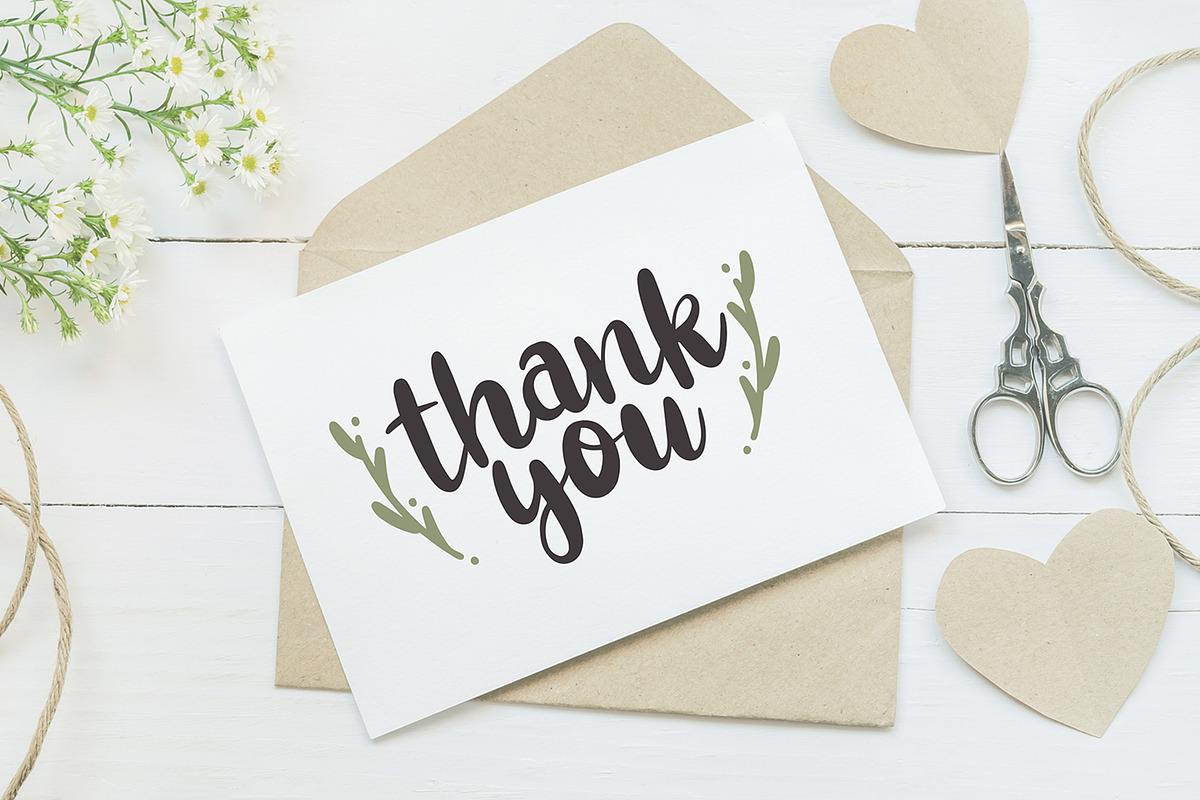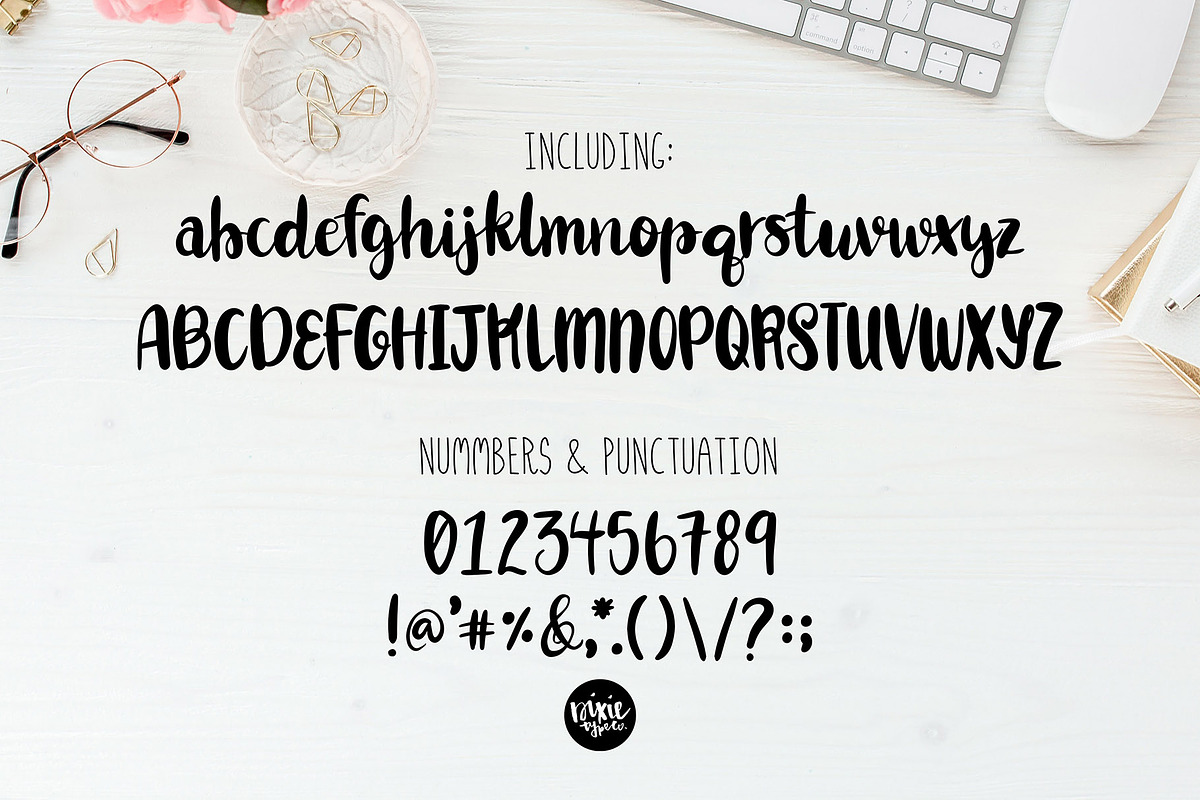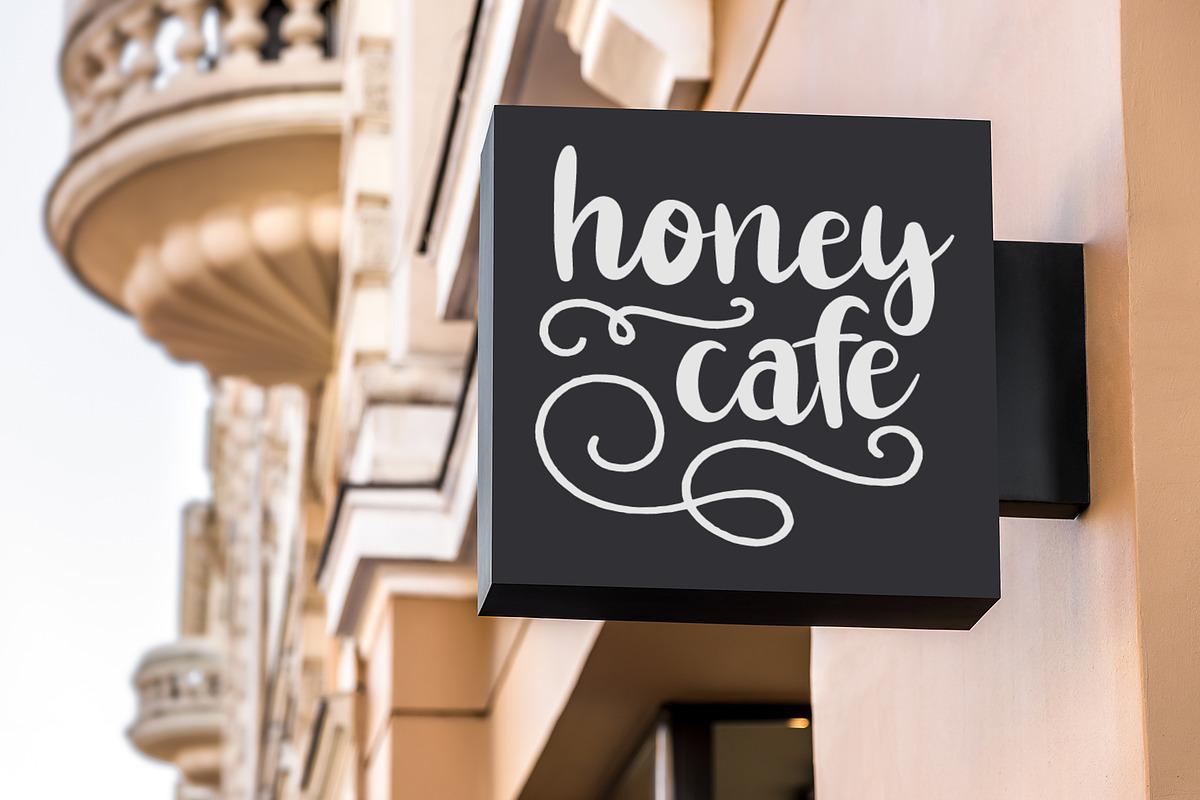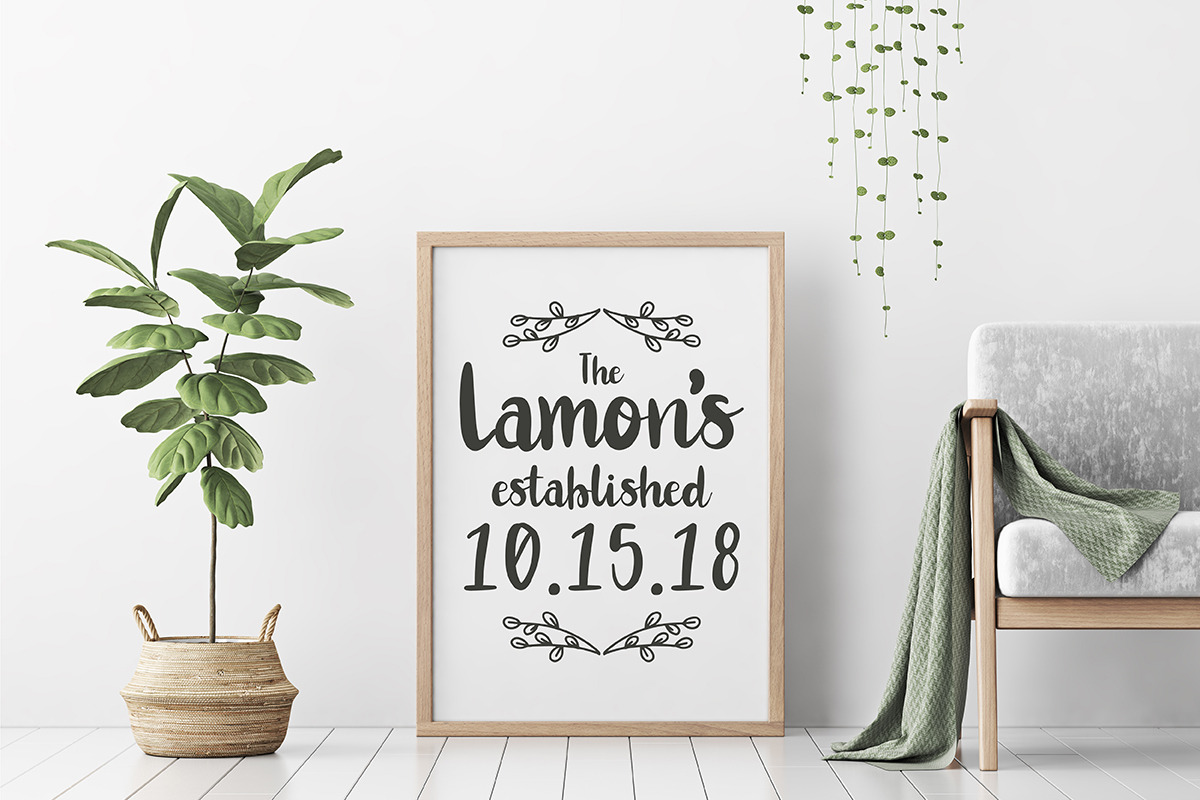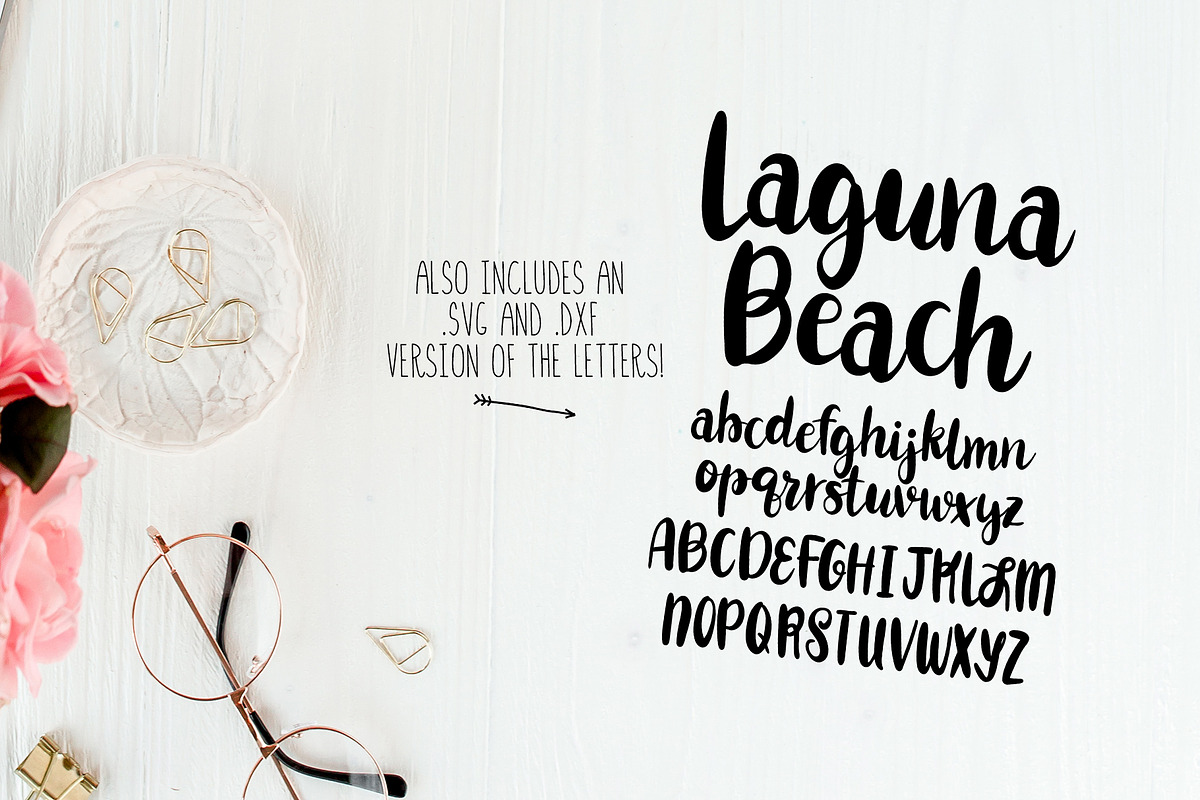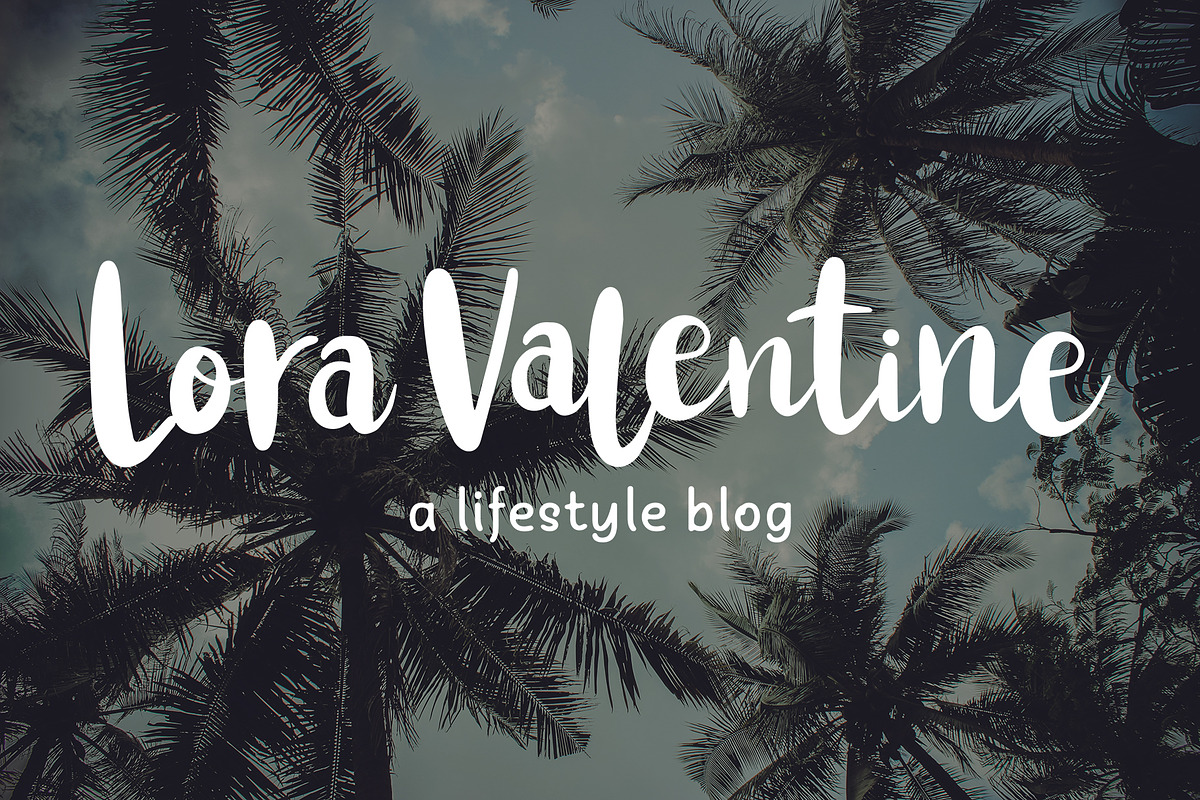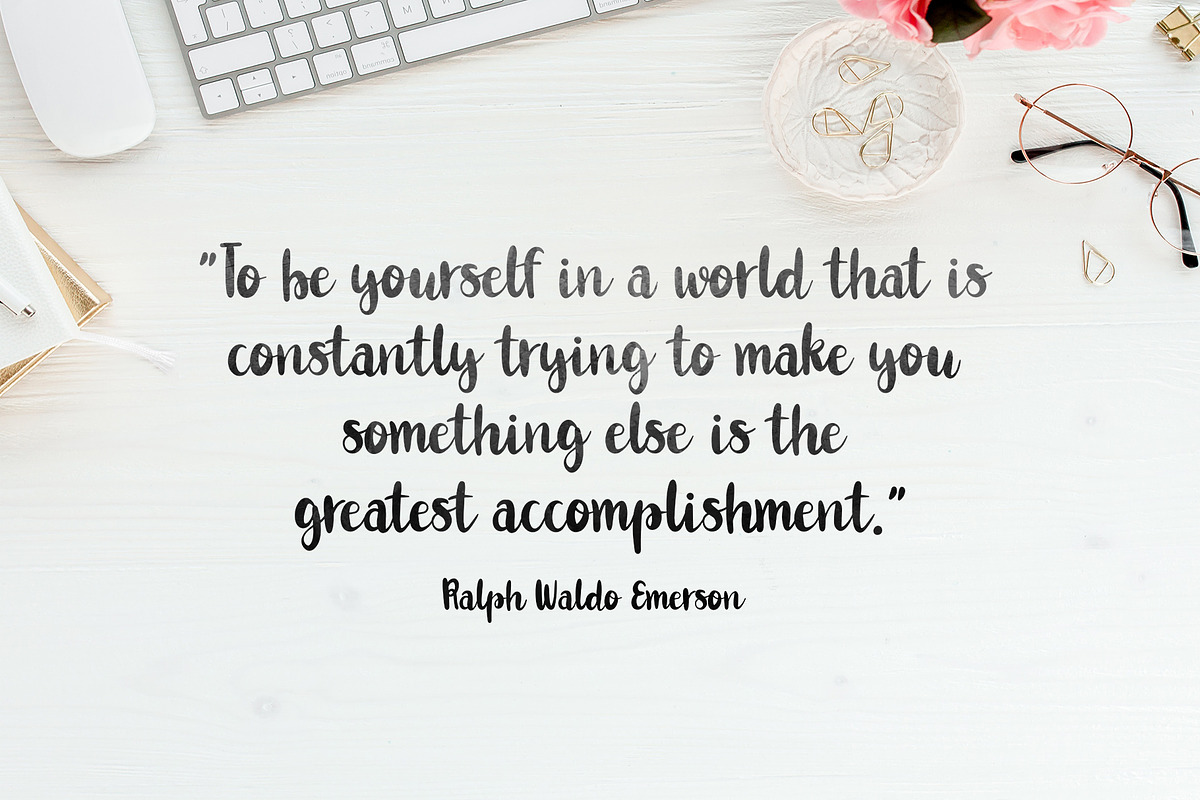
LAGUNA BEACH bold script font
{ A typographic font hand-lettered with love by Dixie Type Co. }
Laguna Beach is a bold, bouncy hand lettered script font with slightly distressed edges that give it that natural hand-drawn character.
- Font includes: Upper and lowercase glyphs, numbers, and 18 additional characters (not all pictured).